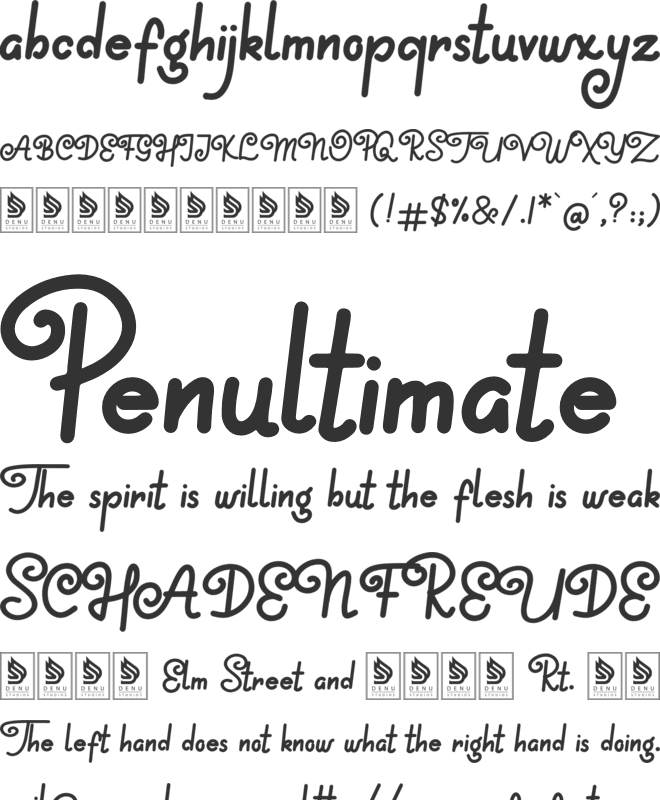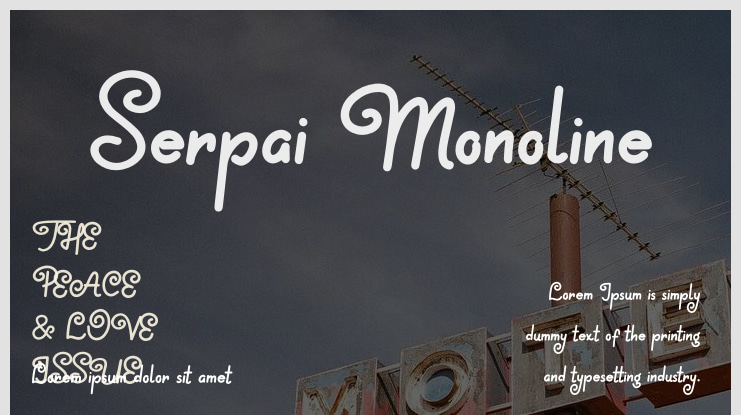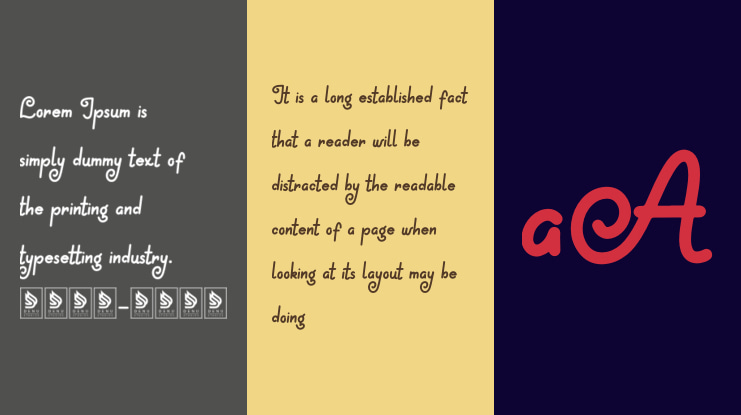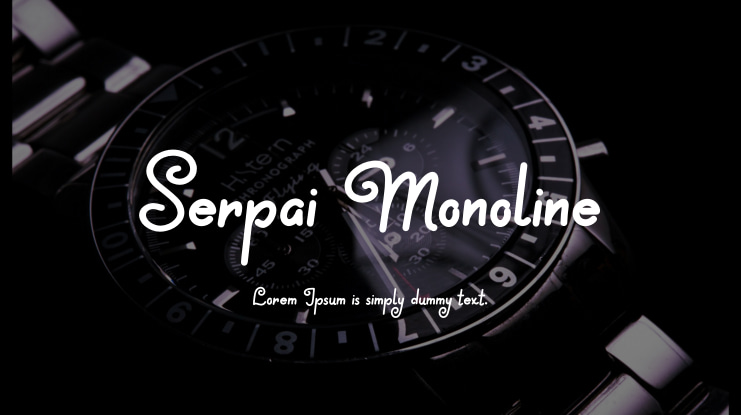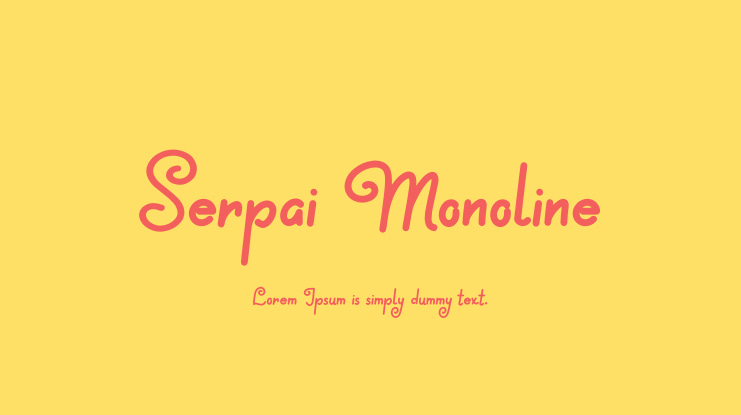
Serpai Monoline Font
Serpai Monoline | Handwritten Font is suitable for various projects such as logos, branding, homeware designs, product packaging, mugs, quotes, posters, shopping bags, t-shirts, book covers, name cards, invitation cards, greeting cards, labels, photography, watermarks, special events, and any other lovely projects that need a handwritten touch.